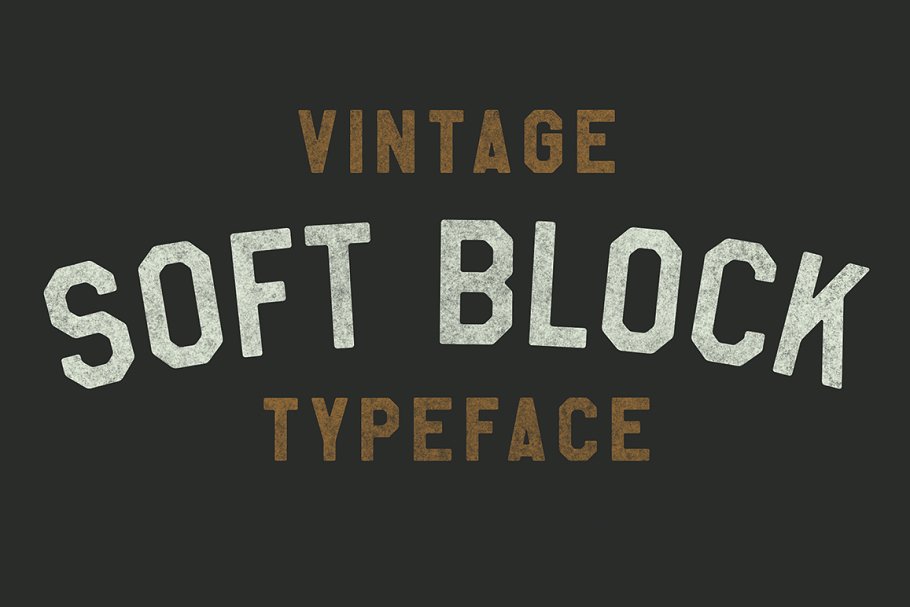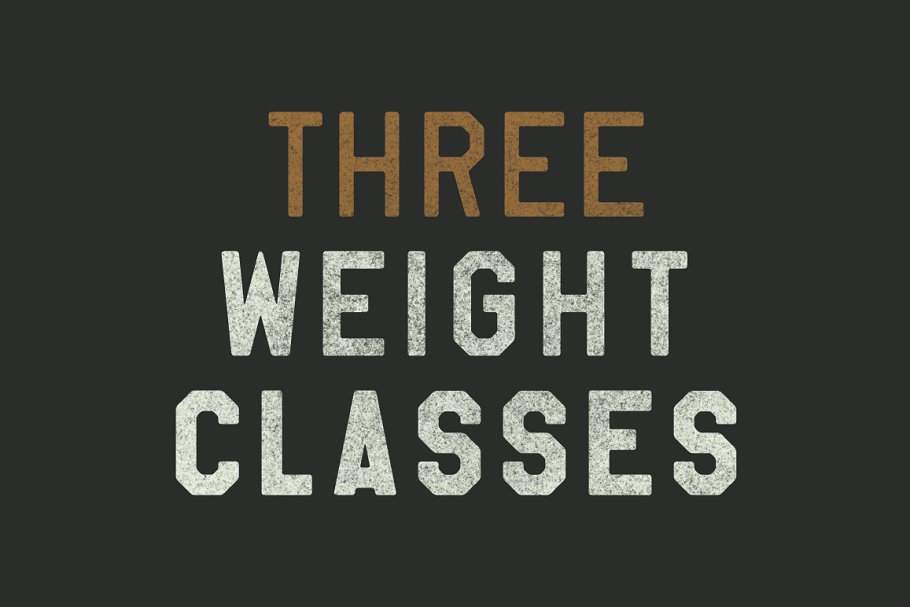
About the Soft Block Pro Font
Soft Block Pro started off as a simple revival of a typeface I found on a vintage poster (see above), I’ve always appreciated athletic typefaces, They are simple, utilitarian and no non-sense, During the process, I wanted to modernize quite a few characters, soften up the edges, and give it an overall vintage, look and feel, —Quite a few hours later, Soft Block Pro is now a 3 weight class must-have typeface for vintage and athletic aficionados alike